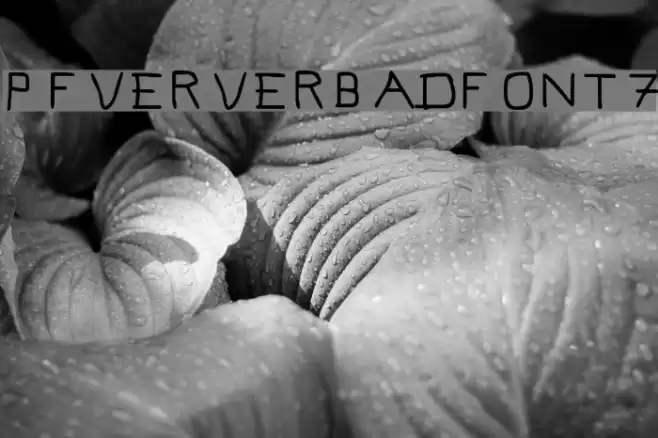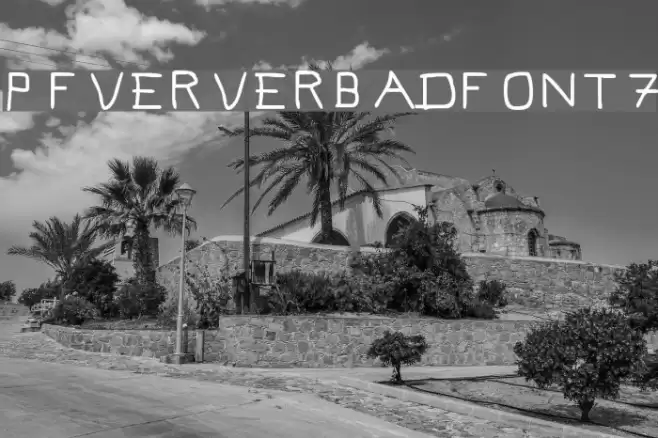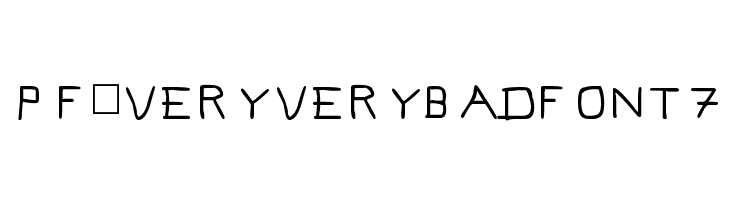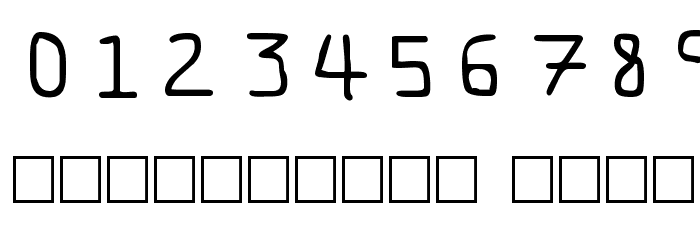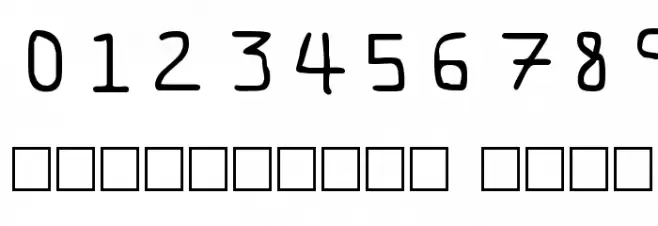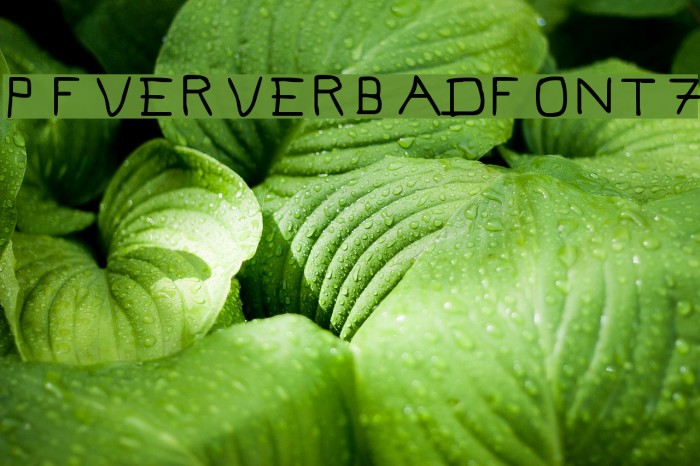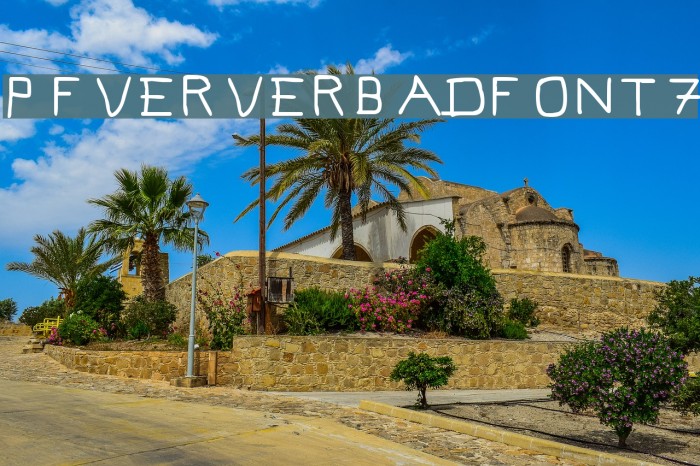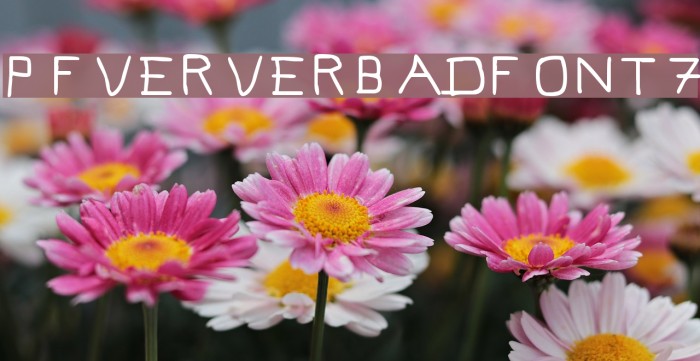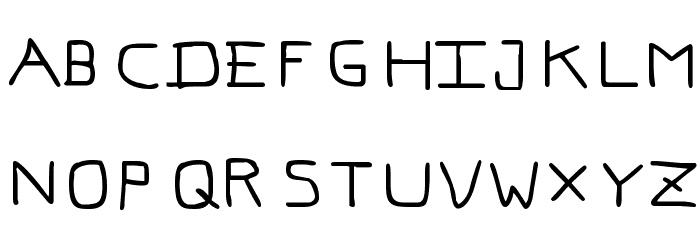
Pf_veryverybadfont7 Font
Pf_veryverybadfont7 Description
This font exhibits a playful and casual handwritten style, characterized by uneven strokes and a slightly irregular baseline. The letters have a quirky, informal appearance, with some characters showing unique, unexpected twists and turns. The overall look is reminiscent of a child's handwriting or a doodle, making it suitable for projects that require a touch of whimsy or creativity. The numerals and special characters maintain this playful aesthetic, ensuring consistency throughout the character set. Despite its informal nature, the font remains legible and clear, with each character easily distinguishable from the others.
A playful, handwritten font with a quirky and informal style from Crazy fonts.
- Proposed Projects: Ideal for children's books, creative posters, casual invitations, and playful branding.
- Overall Style: Casual, Playful
- Use Case: Headlines, Informal text, Creative projects